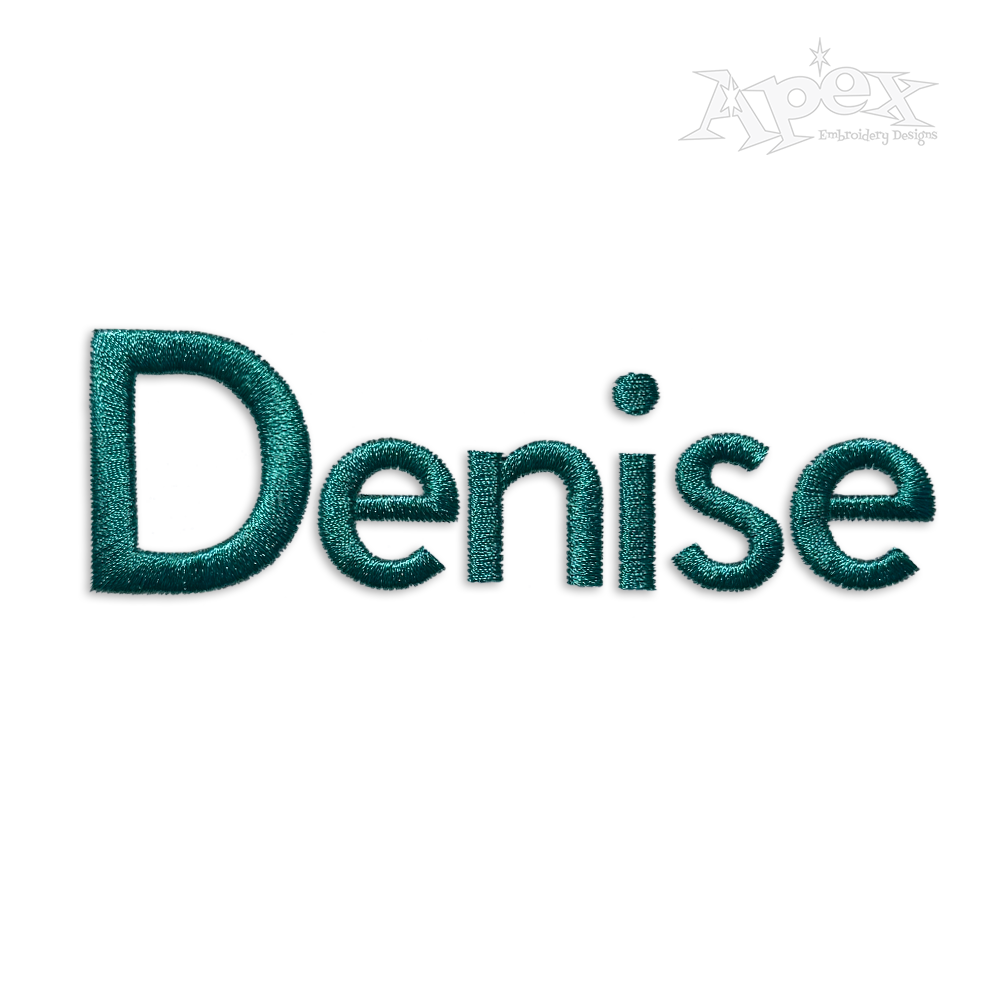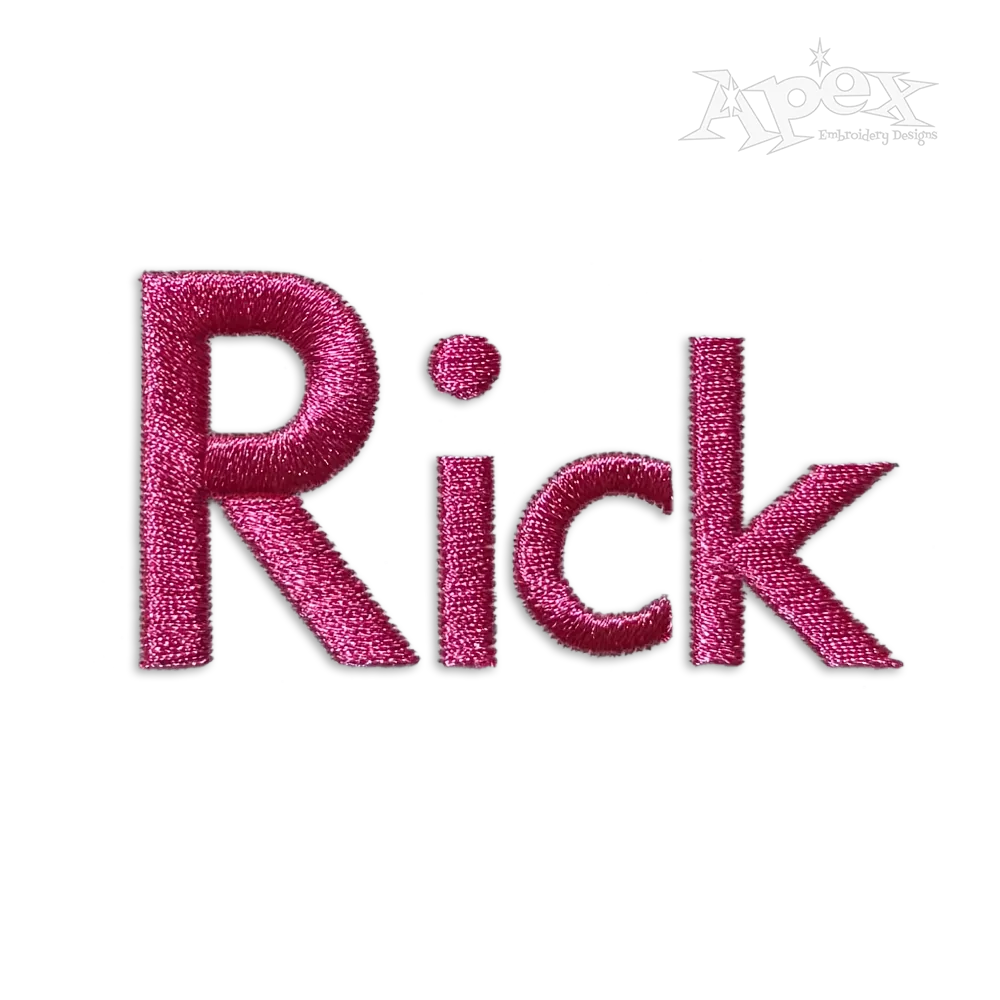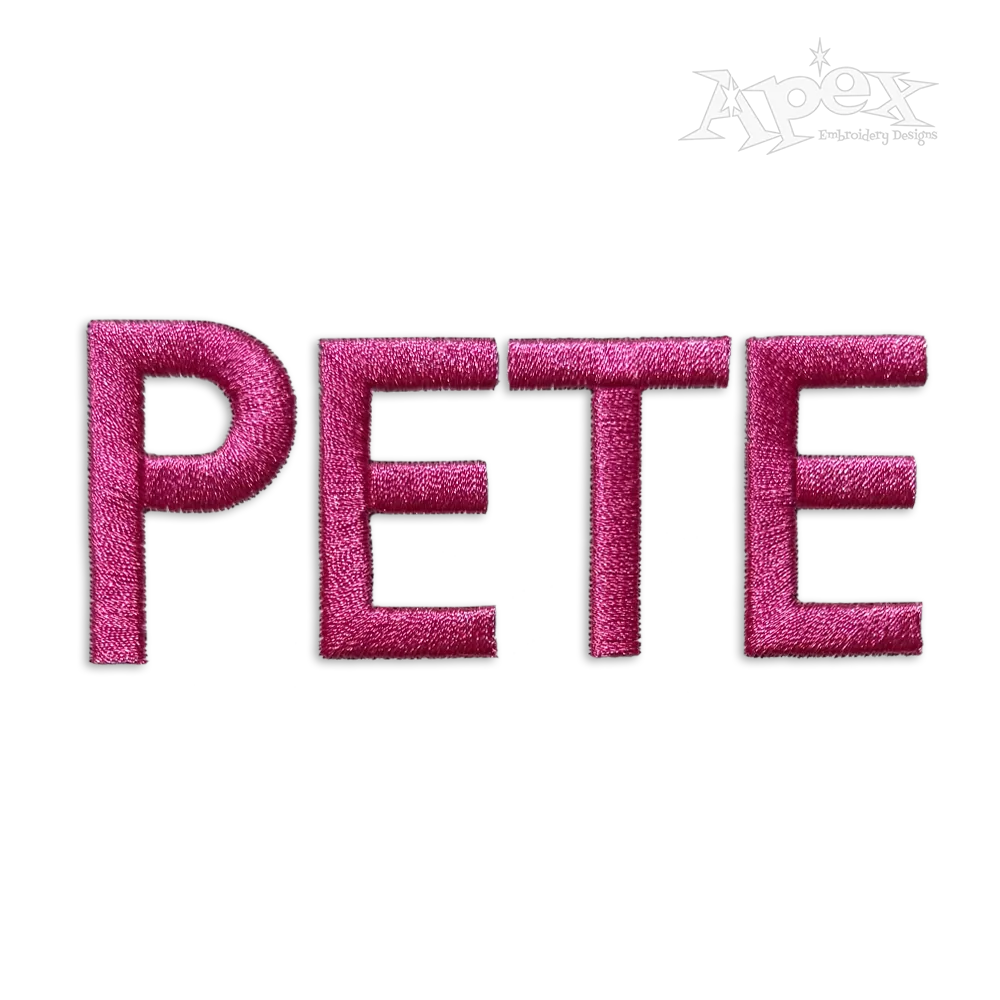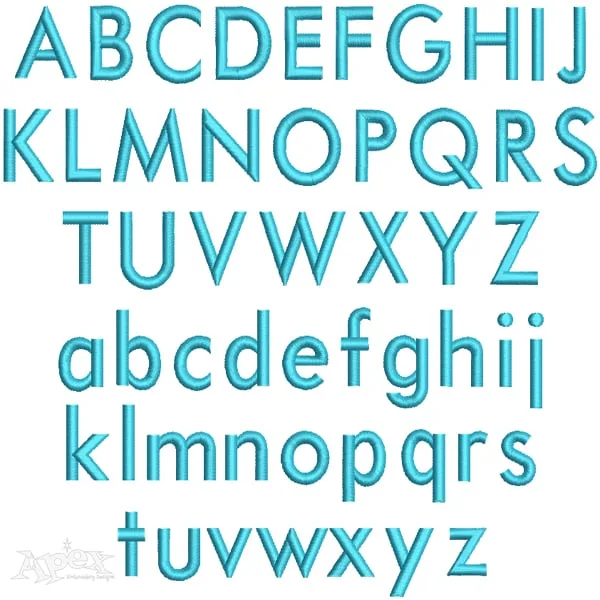
Futura Block Embroidery Font
When shaping the Futura Block embroidery font at the digitizing board, we drew inspiration from the clean, uncompromising geometry of mid-century modernist typography. There is a pure, buoyant charm in letterforms built from unpretentious circles and crisp, architectural vertical strokes. Tailored to bring effortless readability and fresh style to modern children's wear, bespoke gifts, and tailored home accents, this font stitches out with a smooth, glossy satin fullness that makes every personalized name feel striking, confident, and delightfully contemporary.
Futura Block Craft & Letterform Details
What makes Futura Block an absolute joy to embroider is the deliberate engineering behind its unadorned, sans-serif geometry. Because minimalist letters leave nowhere for imperfections to hide, every satin column has been digitized with dynamic angle graduation to ensure the thread reflects light consistently through every curve. The sweeping rounds of the 'C', 'G', and 'O' are built with specialized push-pull compensation, guaranteeing they stitch out as true circles rather than flattening on tricky knits or sturdy canvas.
Clean, blunt end-caps give each letter a confident finish, while underlay stitching is custom-calibrated for each scale to maintain solid loft without stiffness. The result is an alphabet that runs cleanly from first stitch to last, leaving behind a smooth, polished relief that elevates everyday personalized stitching into modern textile art.